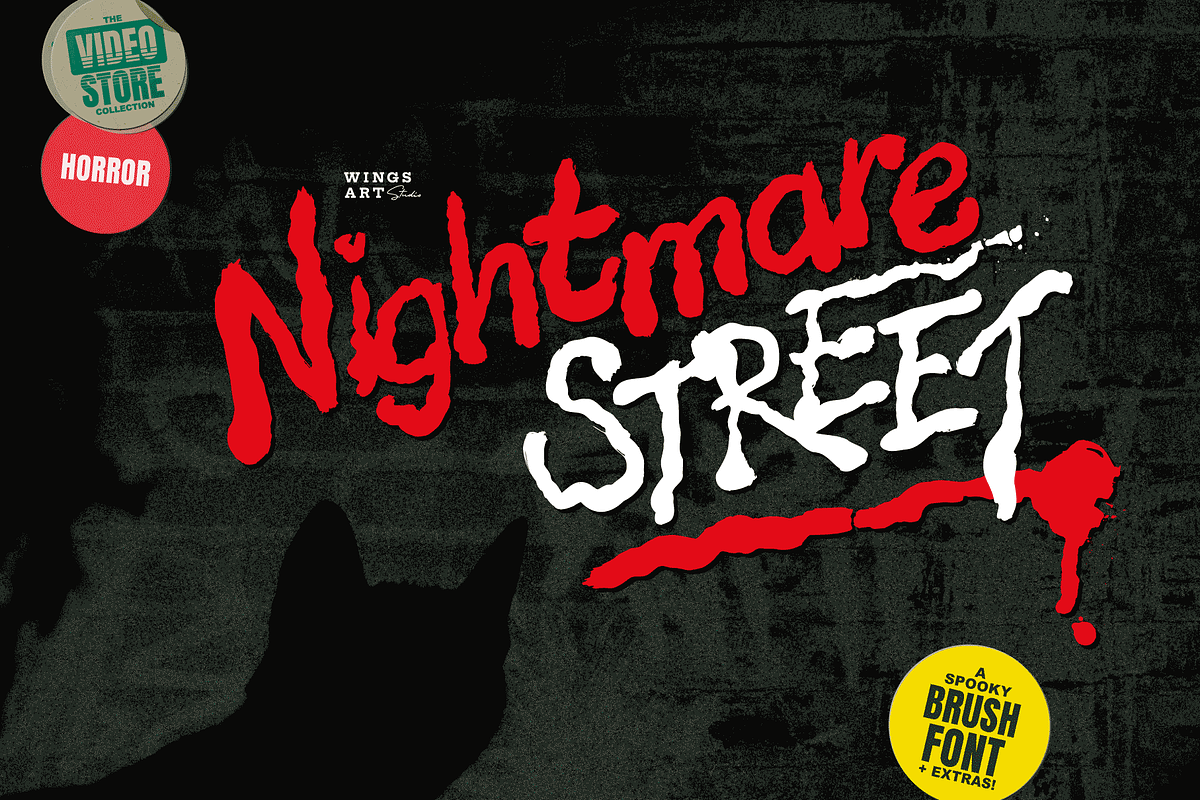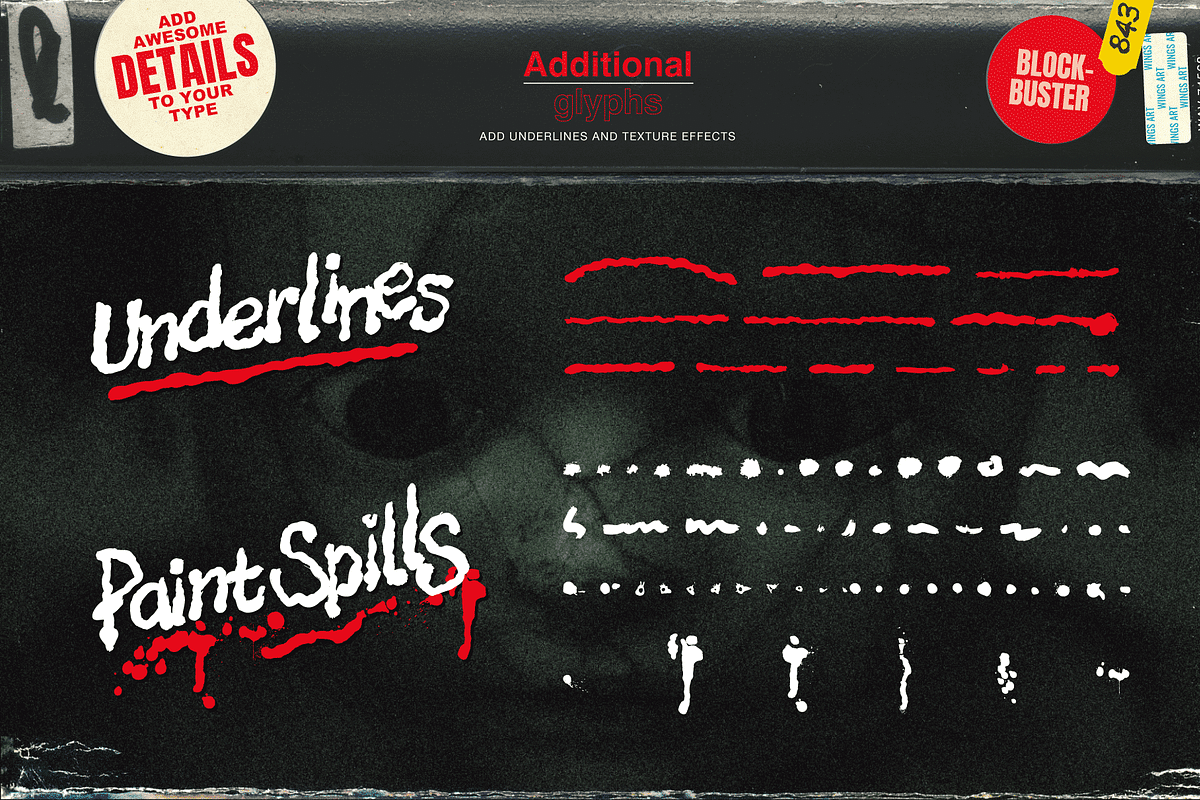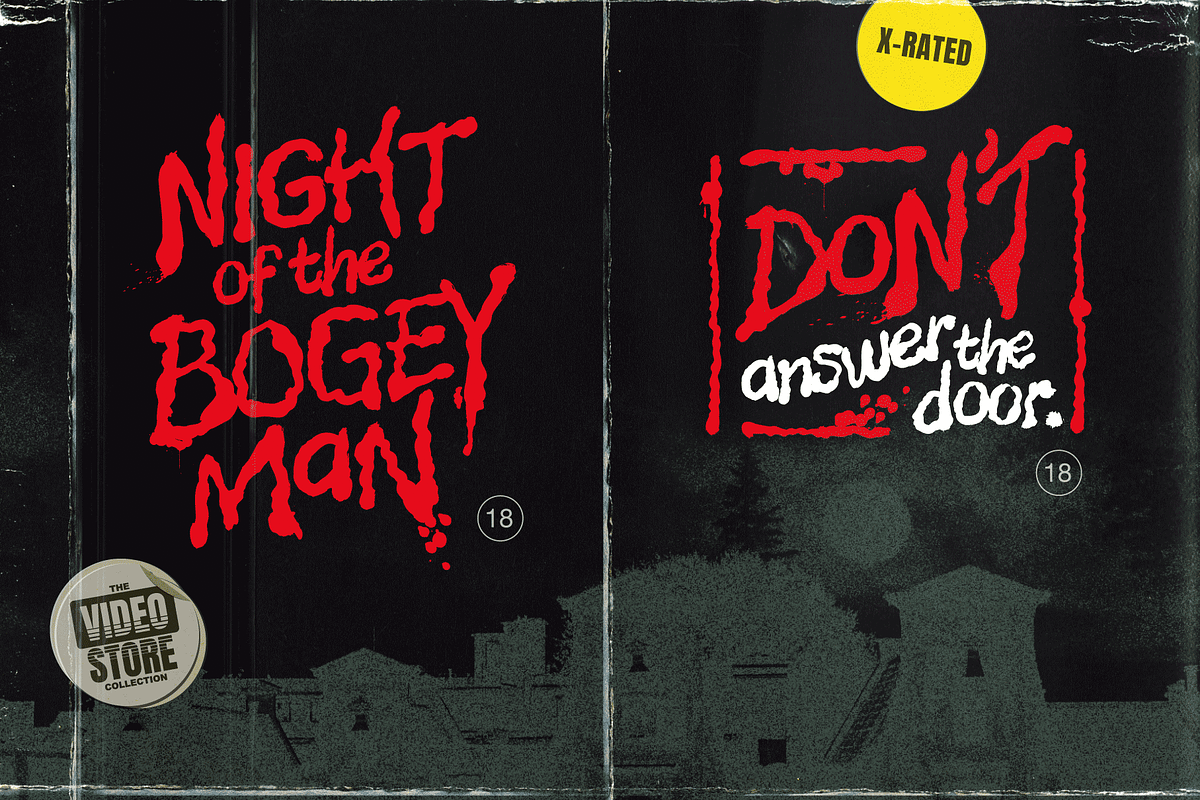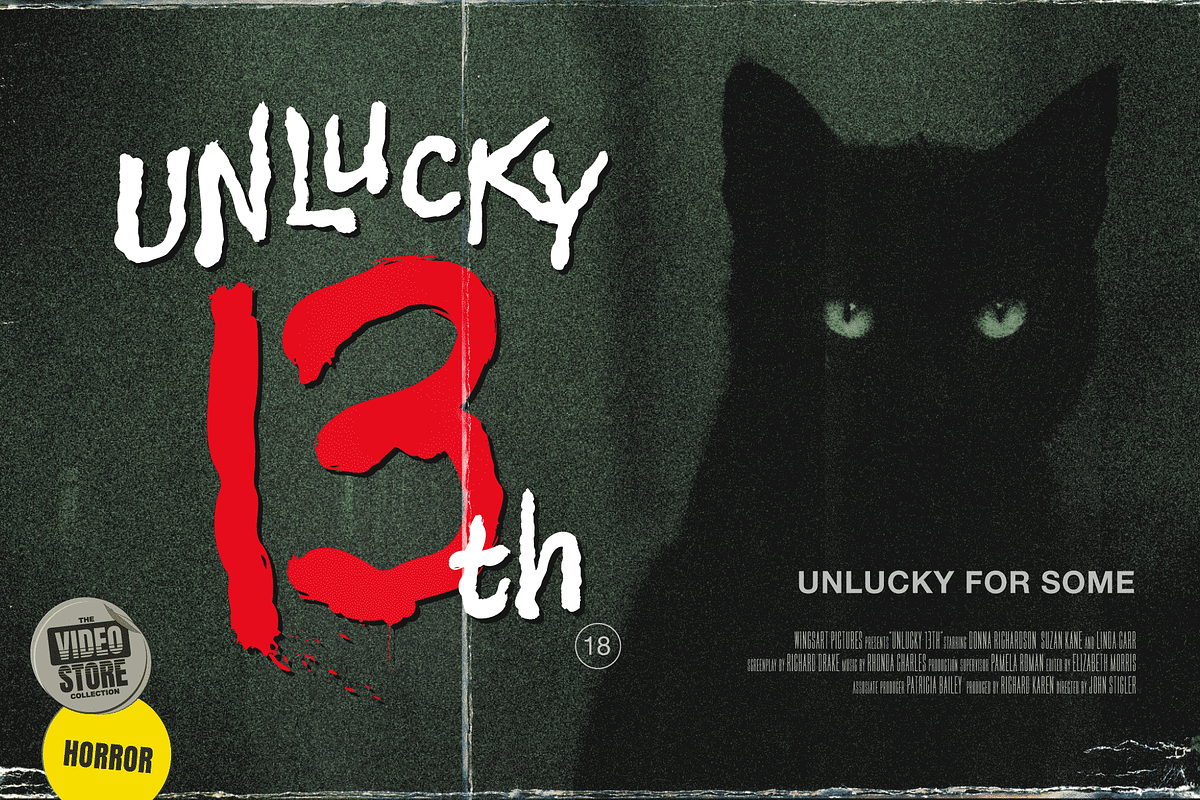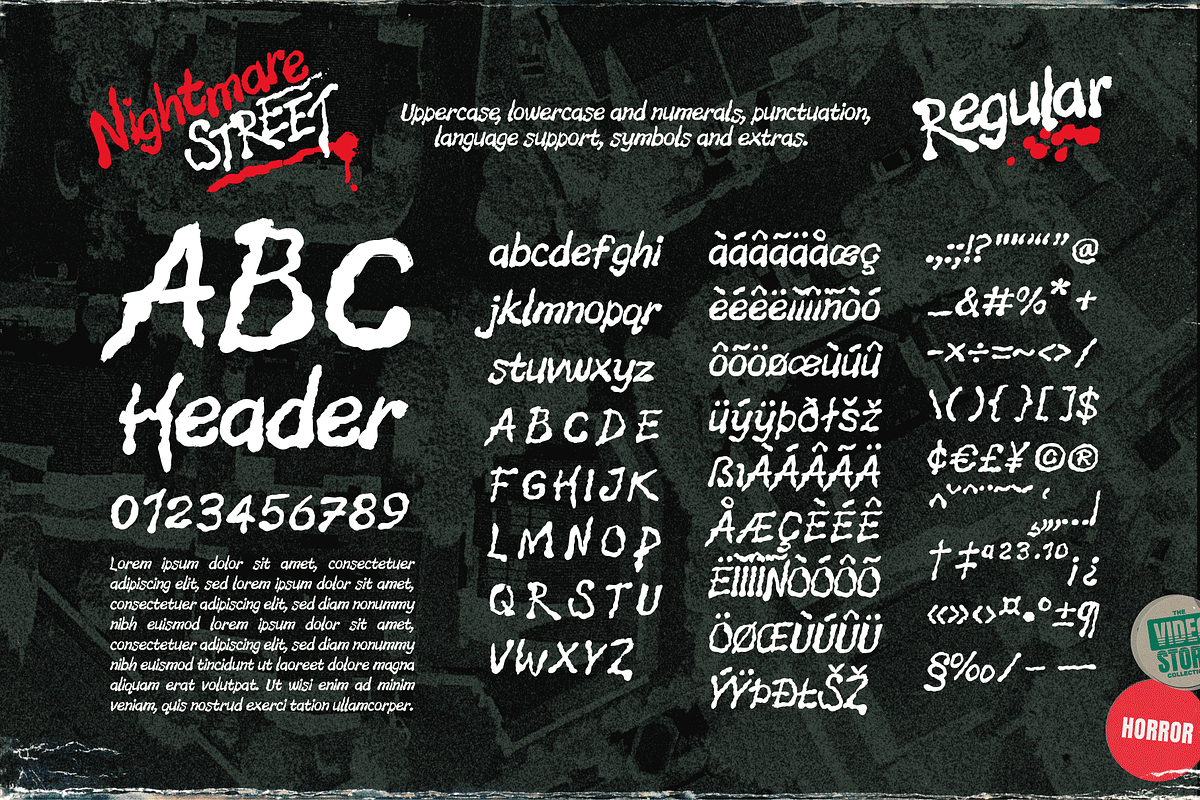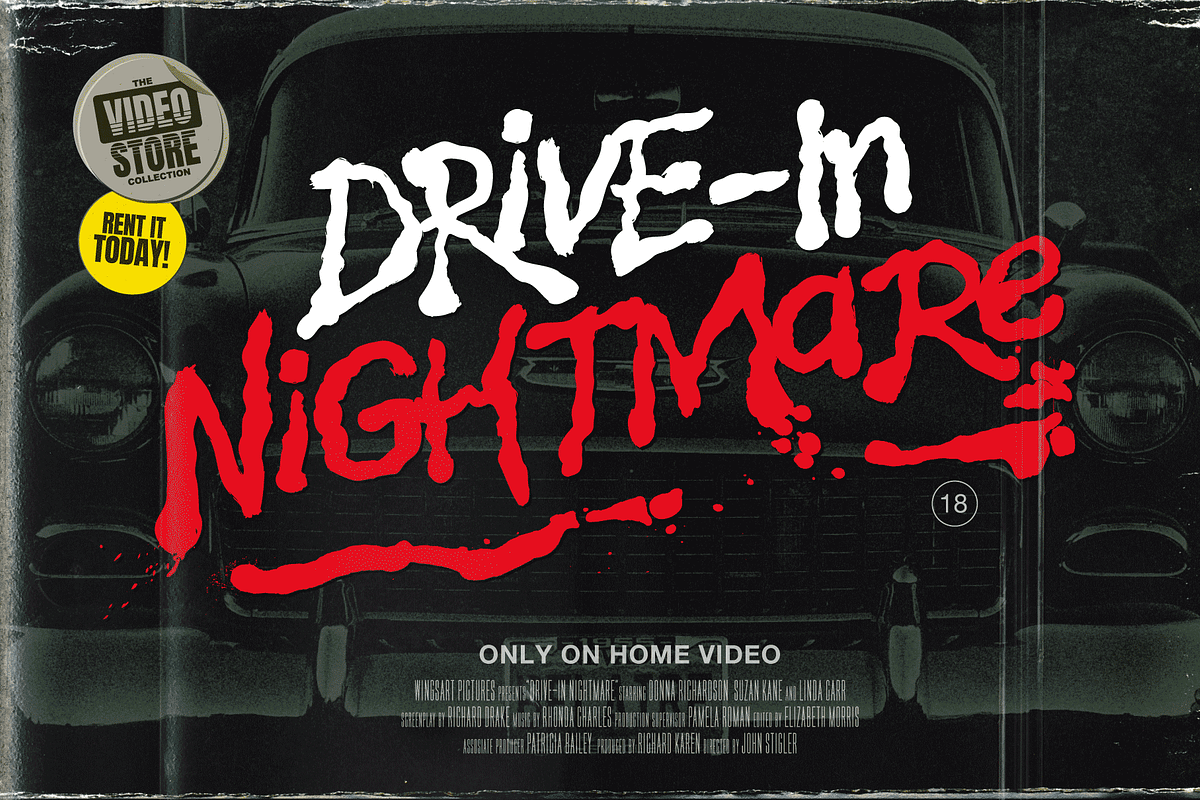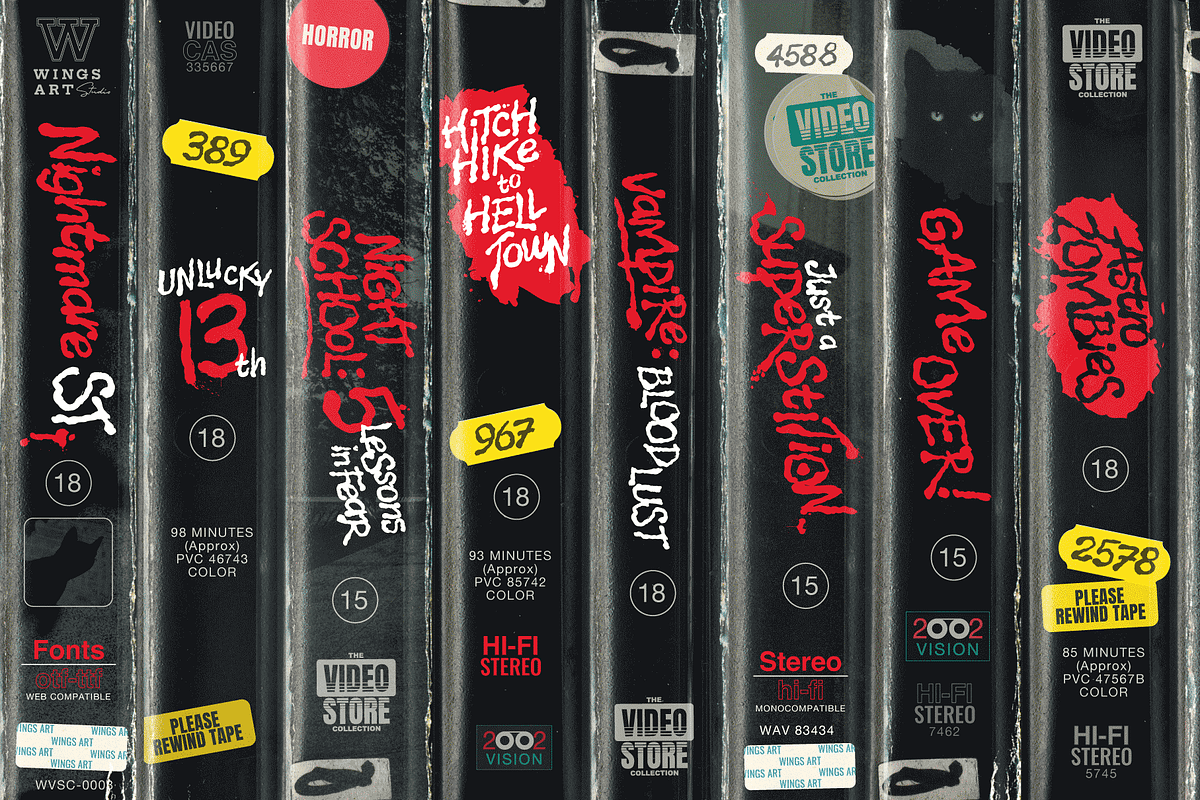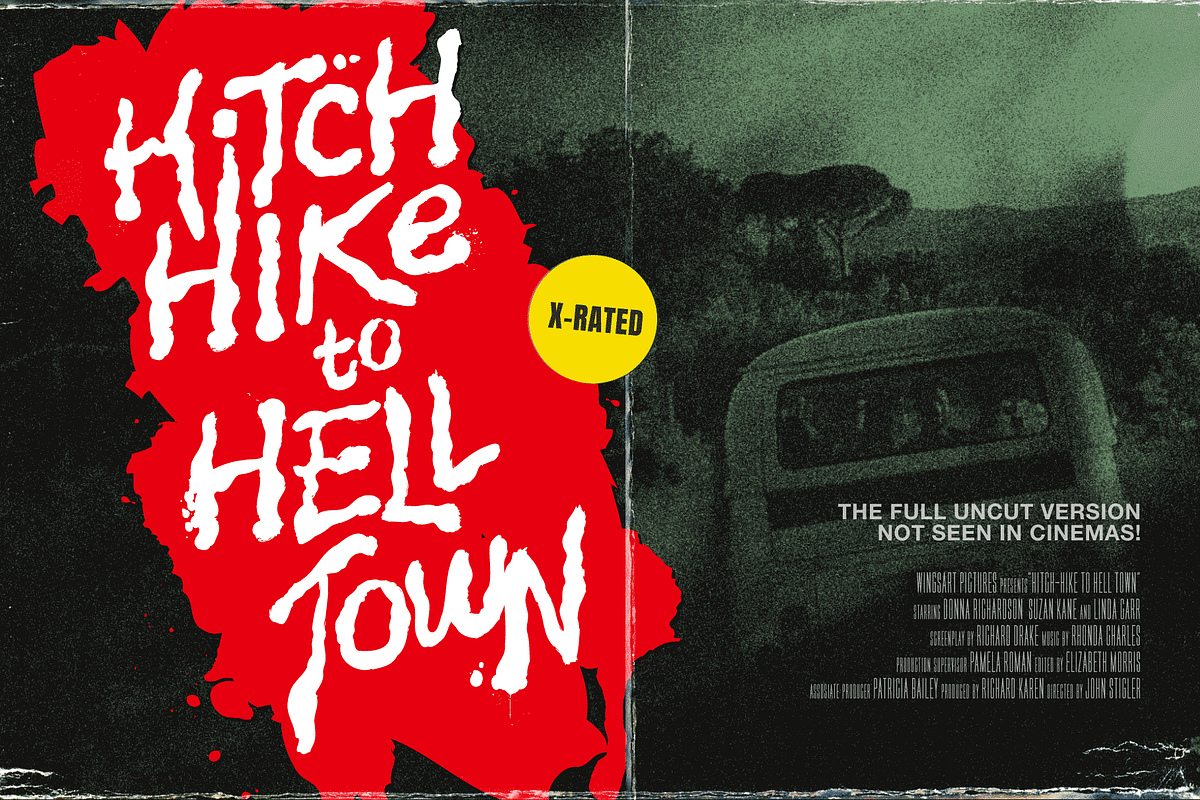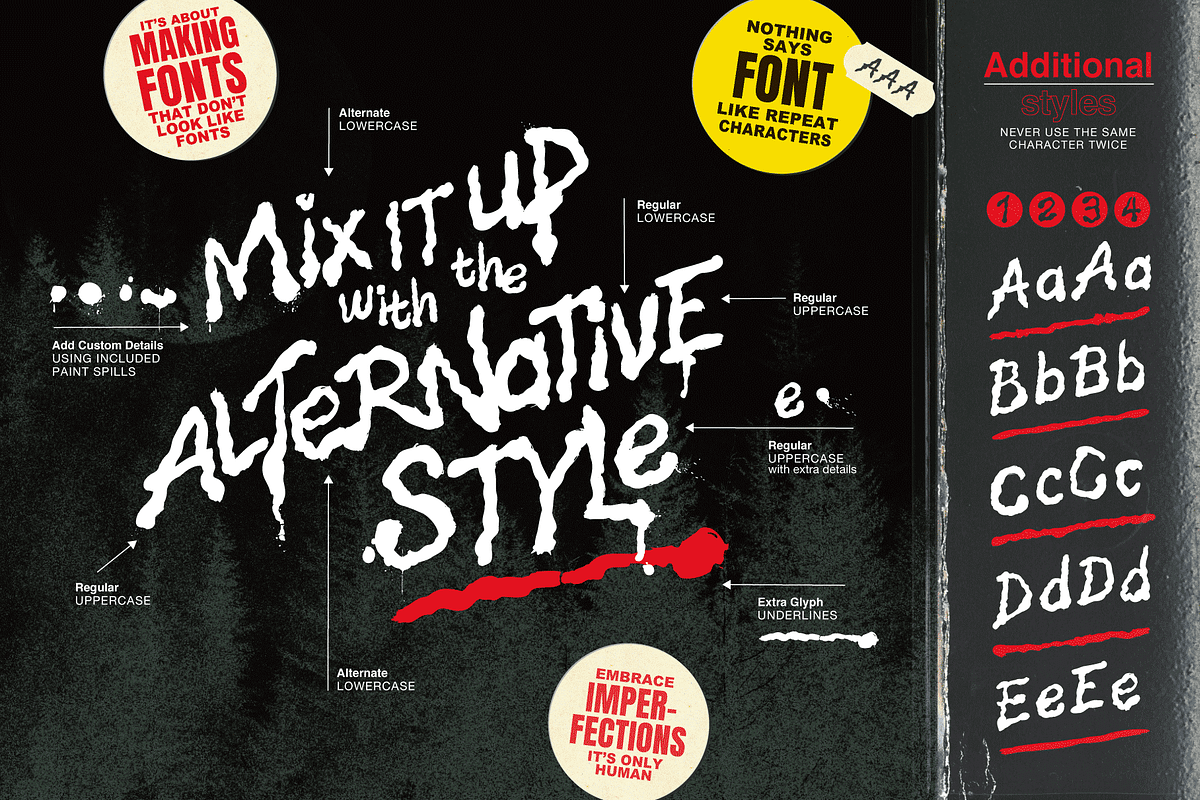
Nightmare Street - Halloween Font
Take a midnight stroll if you dare through the shadowy terrace of terror, in Nightmare Street!
A bloodcurdling design supplied in two styles with additional underlines and paint spills, Nightmare Street is an 80s inspired horror font straight from the video store. It’s the perfect choice when you want a hand-made look for your movie posters and trailers, album covers, books and Halloween promos.
This font includes complete uppercase and lowercase characters plus punctuation, numerals and language support. It also comes with a full set of alternatives ensuring that you’ll never have to repeat your e’s or t’s for a more convincing and authentic hand-drawn look. Check out the visuals for more details and usage examples.